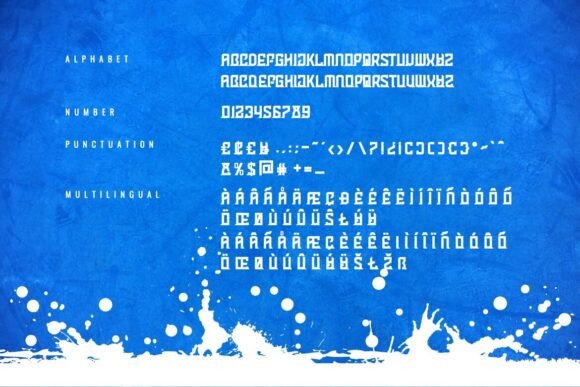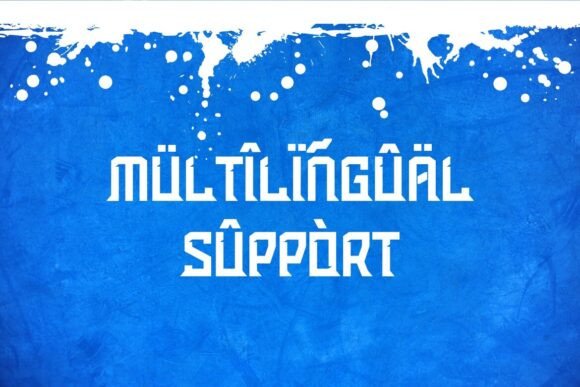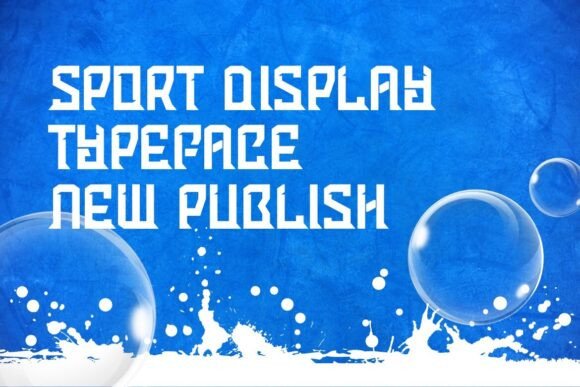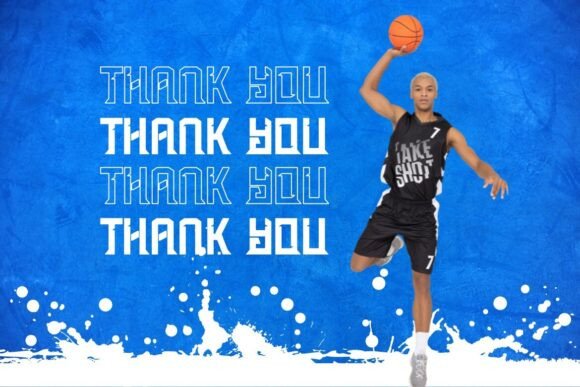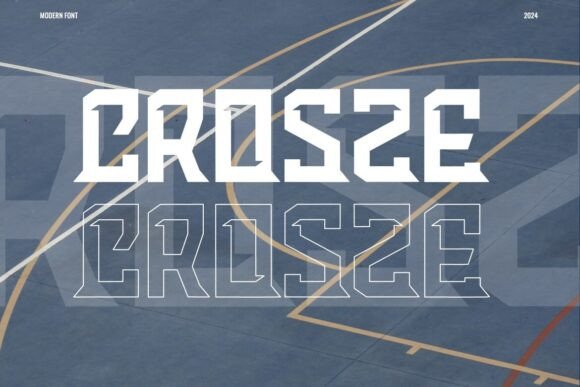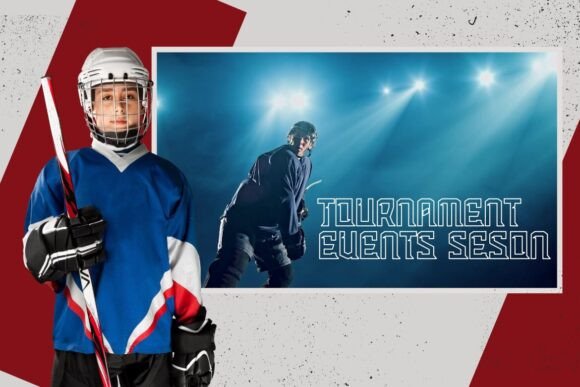
Introduction to Crosze Font
Crosze – Sport Display is a digital screen designed to show sports scores, statistics, and live updates in real-time.
It’s perfect for use in sports venues, gyms, or events, helping spectators stay informed with clear and easy-to-read information .
Key Features of Crosze Font
Why Choose Crosze Font?
Crosze Font offers exceptional quality and versatility, making it a valuable addition to your design toolkit. Whether you’re creating for personal projects or commercial use, Crosze Font delivers professional results.